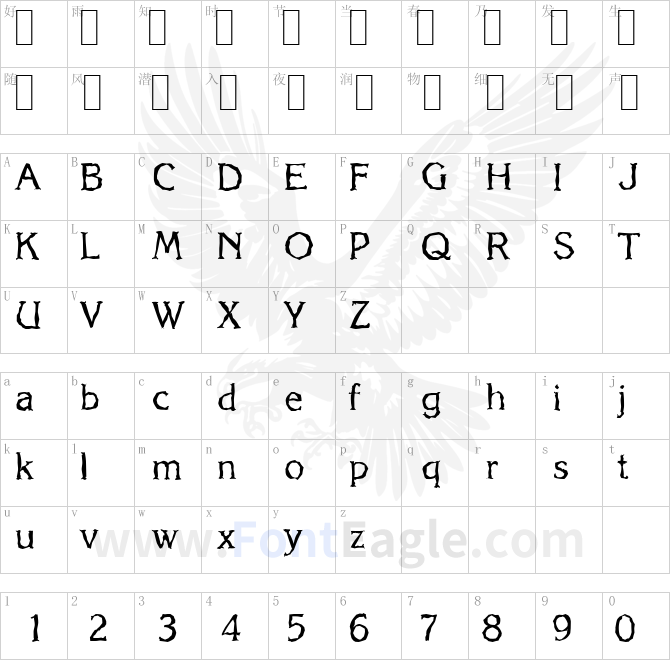
- Font name:KorinthRandom
- Font Subfamily ID:SoftMaker Software GmbH KorinthRandom-Regular
- Font Full Name:KorinthRandom-Regular
- Postscript:KorinthRandom